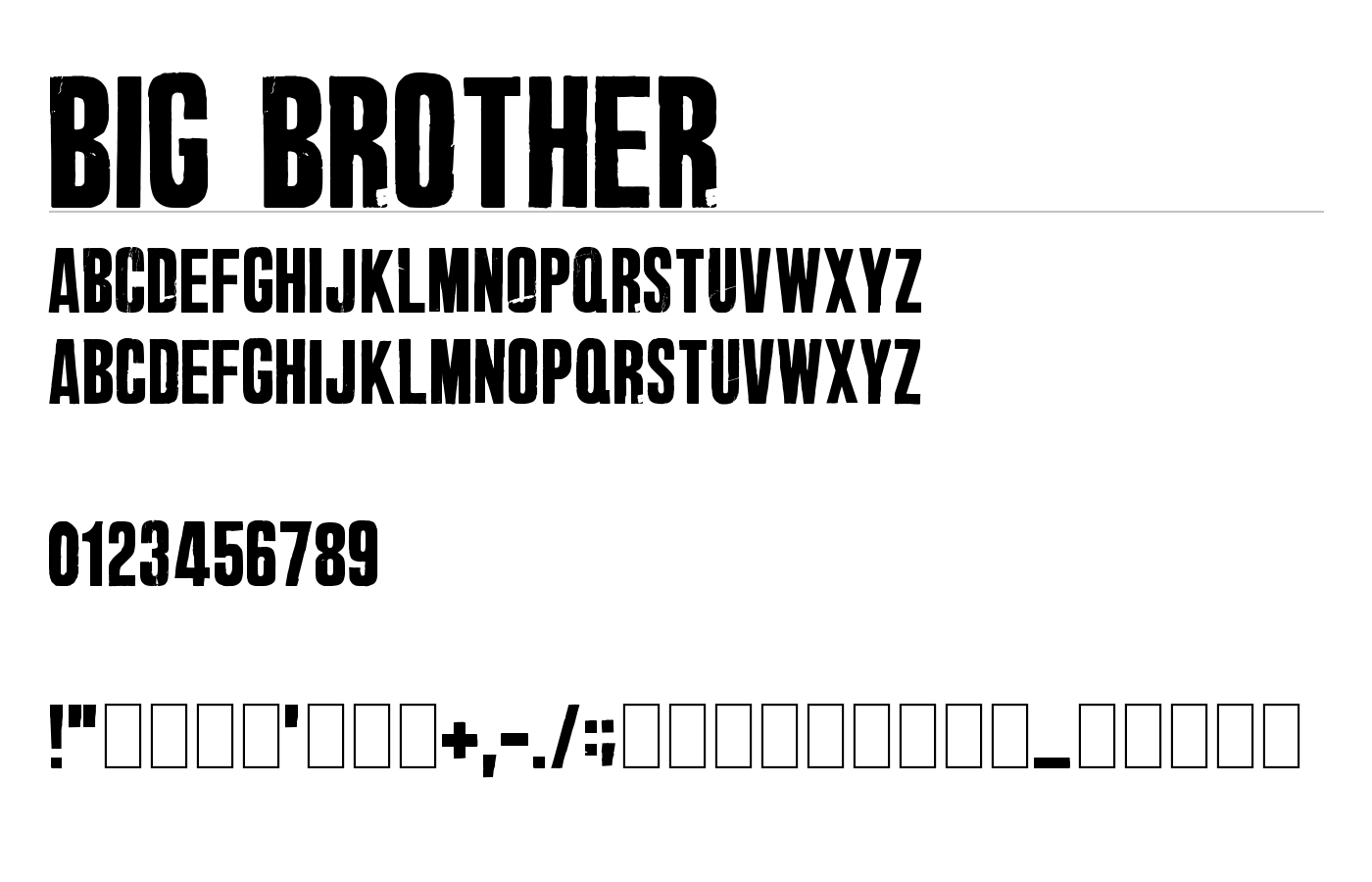
Big Brother is a bold, condensed sans serif font with a gritty, distressed texture that gives it a strong, industrial feel. Its tall, narrow letterforms and rough edges make it ideal for eye-catching headlines, posters, and branding that want to convey strength, toughness, or a vintage urban vibe. This font works best where impact and character are needed, especially in creative designs that benefit from its rugged personality.
Big Brother Font